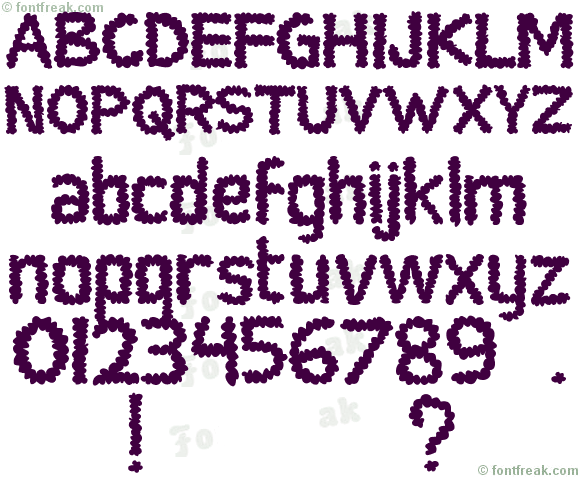
Social Monster Normal
Social Monster Normal by Adien Gunarta is a unique display font that blends a playful aesthetic with a distinctive character. This font features a decorative style, characterized by its bold, rounded shapes that evoke a sense of whimsy and fun. The stroke weight is consistent throughout, creating a uniformity that is both engaging and approachable. The letters appear slightly irregular, which adds to the font's charm and personality, making it perfect for designs that aim to capture attention.
With its eye-catching design, Social Monster Normal is ideal for a variety of creative applications. It works exceptionally well for children's book covers, where the playful nature of the font can draw in young readers. Additionally, it can be used for vibrant event flyers, particularly for social gatherings or parties that want to convey a lively atmosphere. The font is also suitable for merchandise branding, especially for products aimed at a younger audience, such as clothing lines or accessories. Moreover, it can enhance digital content, making it a great choice for social media graphics that seek to stand out in crowded feeds.
The target audience for this font includes graphic designers looking for distinctive typefaces, small business owners wanting to create memorable branding, and content creators who aim to engage their audiences with appealing visuals.
What sets Social Monster Normal apart is its delightful combination of playfulness and versatility. As a freeware option, it allows designers and creators to incorporate a unique aesthetic into their projects without additional costs. For those seeking a font that makes a statement while remaining accessible, the Social Monster Normal font free download is an excellent choice that elevates any design endeavor.